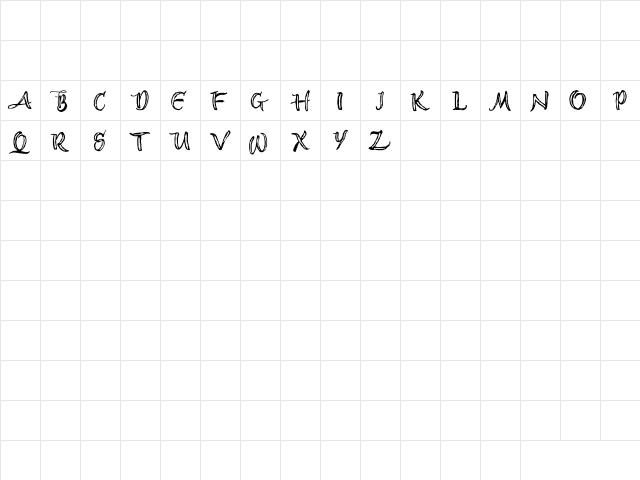
| Style | AEZ scripty |
| Designer | Anastacia E. Zittel |
Design Context for AEZ scripty Typeface
AEZ scripty flows with the natural rhythm of handwritten lettering, making it ideal for designs that call for warmth and personal expression.
Font Pairing: Combine AEZ scripty with a simple geometric sans for maximum contrast — the tension between flowing curves and clean structure is a classic typographic pairing.
Pro Tip: Use AEZ scripty for short runs of text — names, titles, or taglines. Extended body copy in script faces tires the eye quickly.